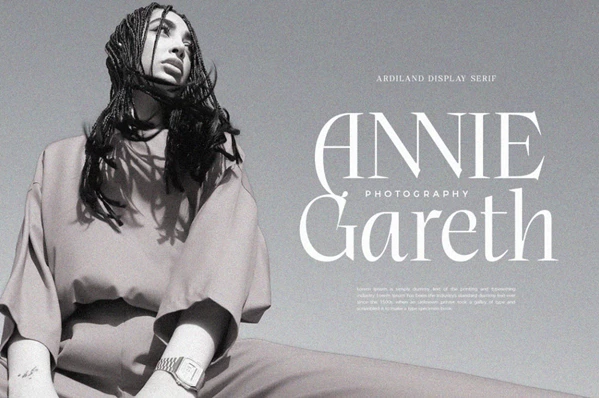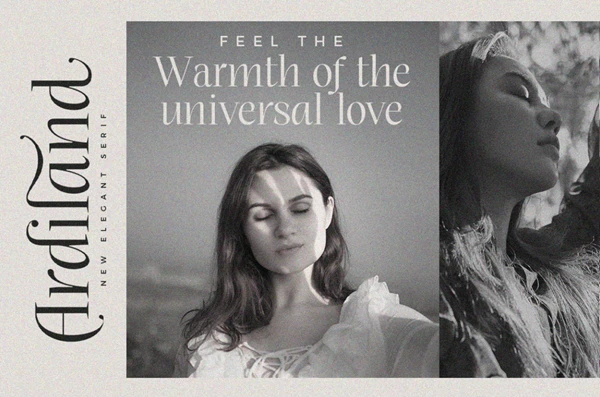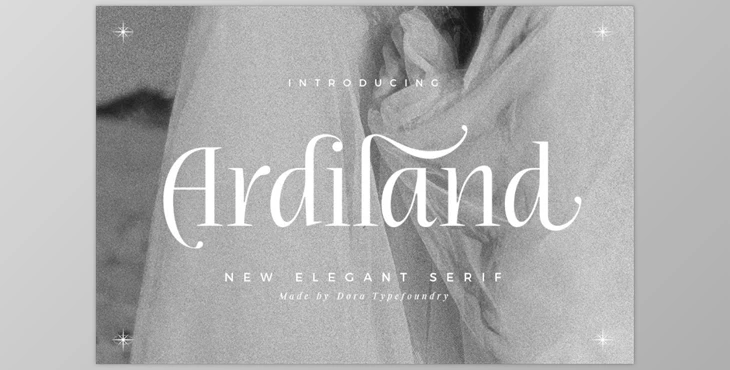
The Ardiland Font adds great sophistication to any design project because of its modern serif appearance. It works best for someone looking for a unique, refined, high-contrast font. For what issues feminine logos and fashion editorials, Ardiland enhances class and elegance to the project. Its versatility makes it suitable for a wide range of applications, including clothing advertisements, magazine titles, packaging and many more. Ardiland modern serif font is crafted to enhance the aesthetic value of designs, making it a must-have for graphic designers.
- Includes uppercase and lowercase letters
- Provides alternatives and ligatures for creativity
- supplies numbering and punctuation
- Furnishes letters that come accentuated
- Cater for different languages for multilingual projects